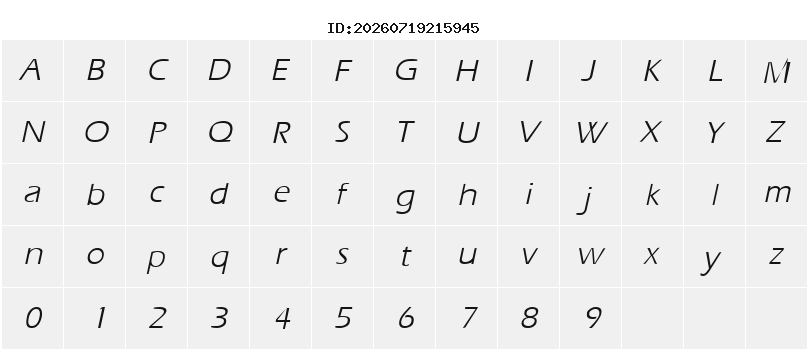
• Font Name: Ergoe
• Full Font Name: Ergoe Italic
Ergoe.ttf is a modern, elegant sans-serif font designed for ultimate readability and visual harmony. Perfect for branding, headlines, web design, and print materials.